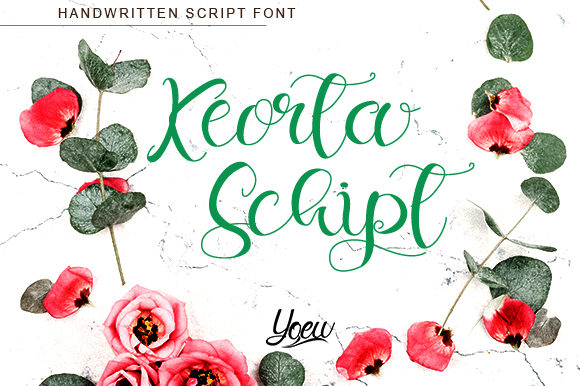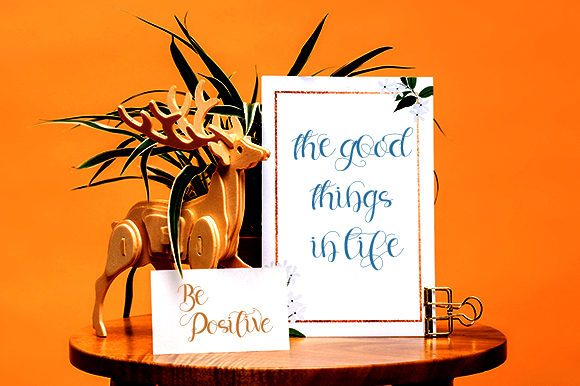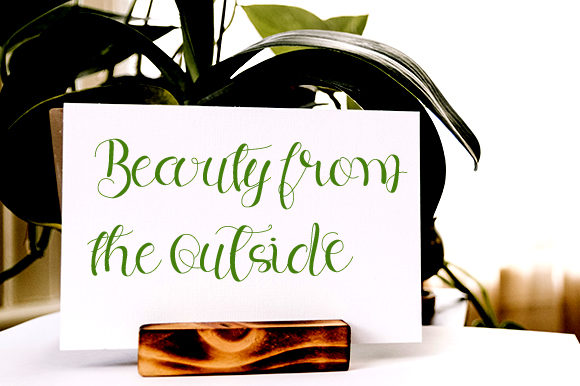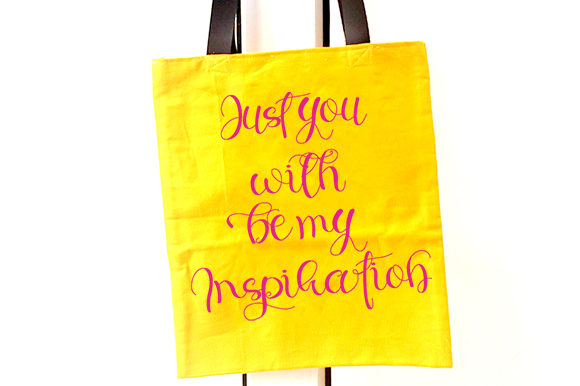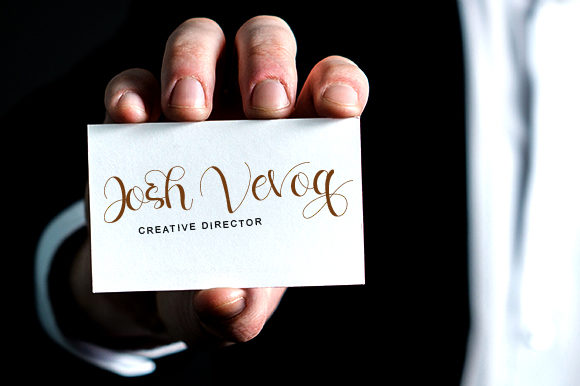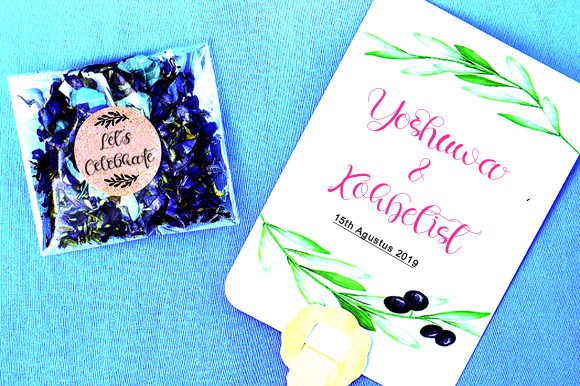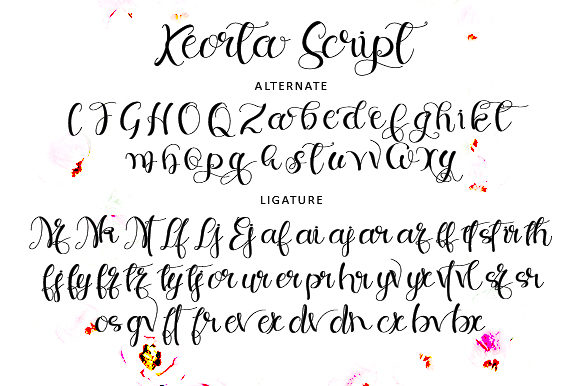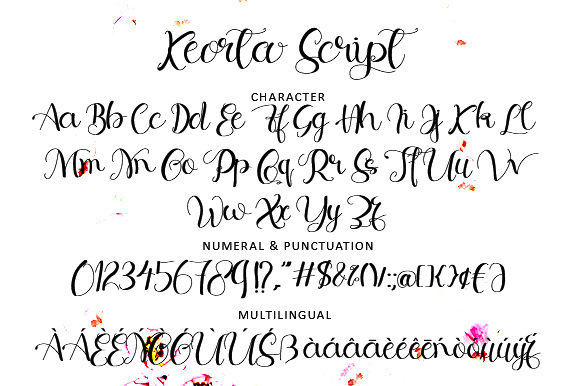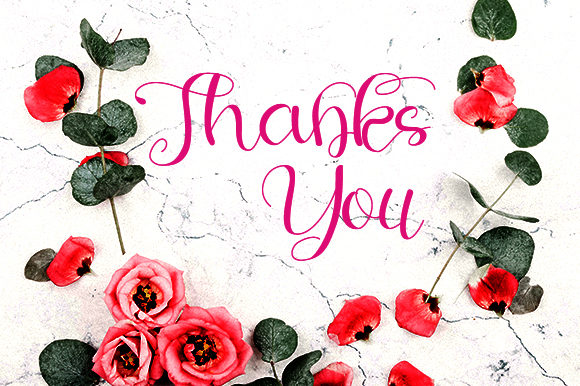
Keorta Script Font
About Keorta Script Font
Keorta Script is a sweet, soft hand-lettered handwritten font. Fall in love with its authentic feel and use it to create gorgeous wedding invitations, beautiful stationary art, eye-catching social media posts, and cute greeting cards.